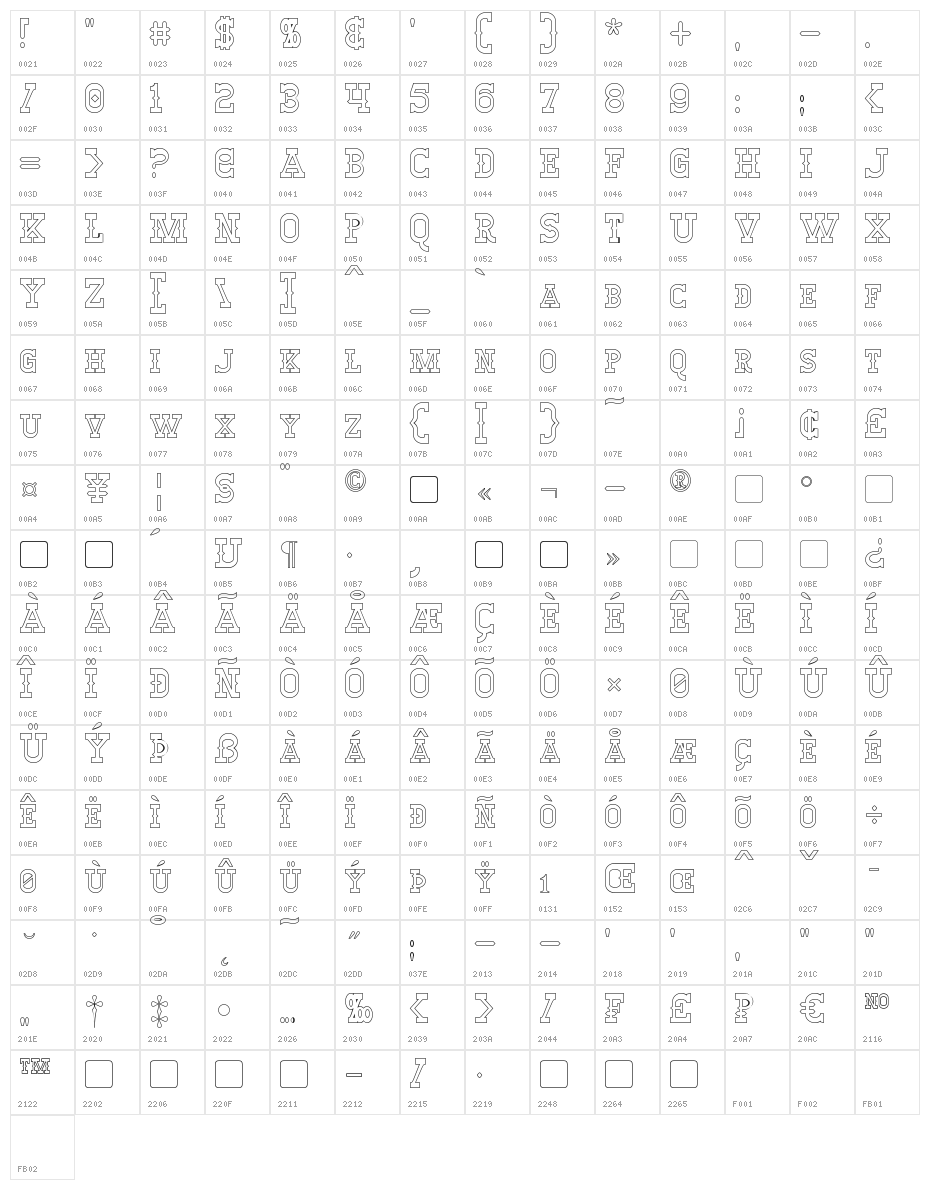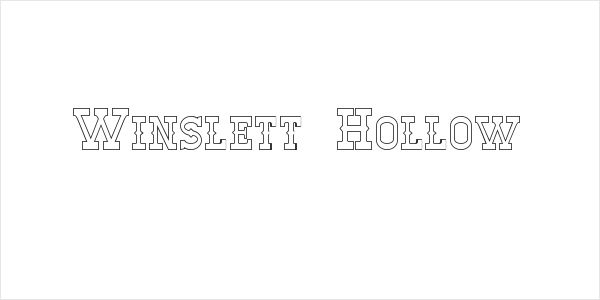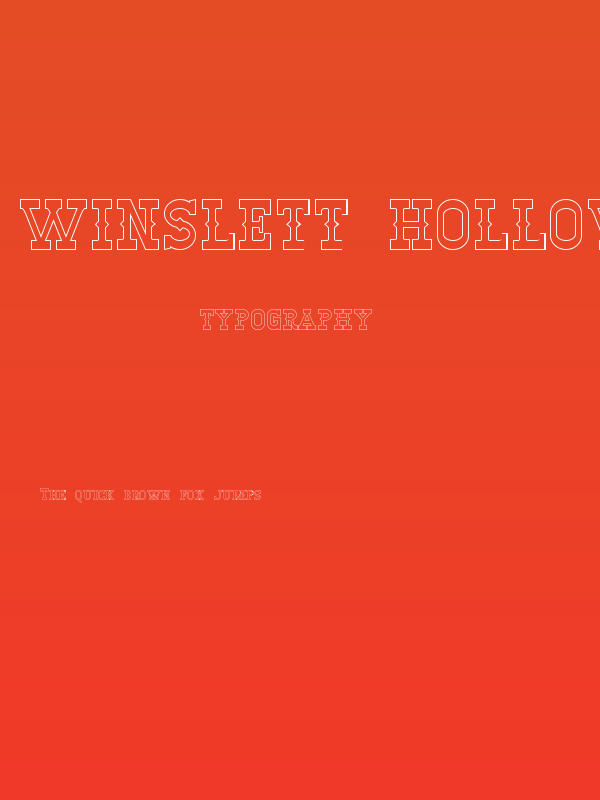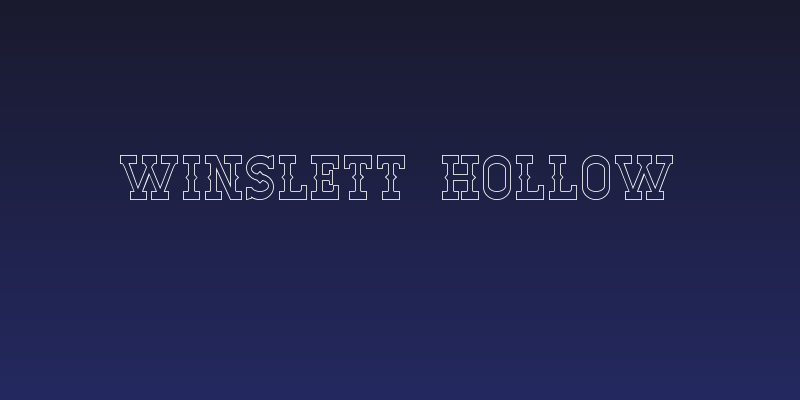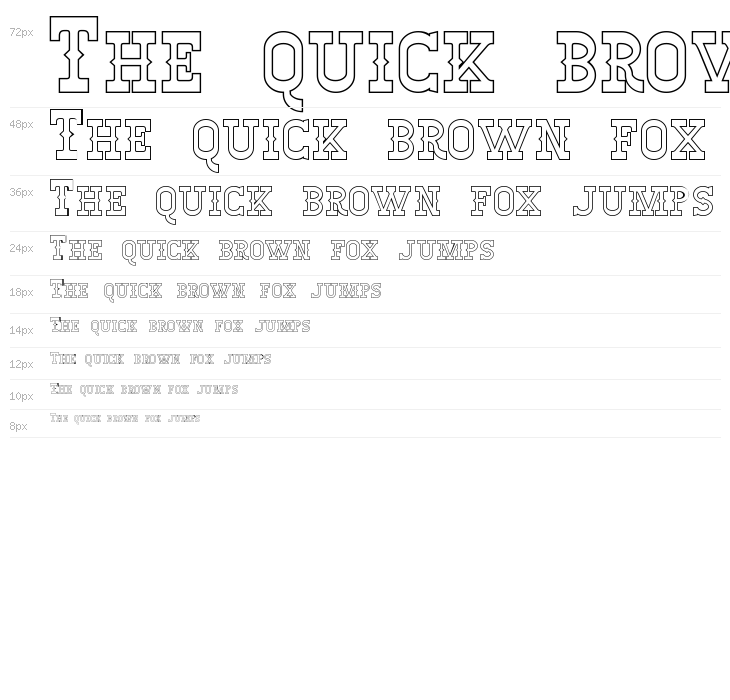
Winslett Hollow Font
Winslett Hollow Description
This font features a bold, hollow design with a strong geometric structure. The uppercase letters are characterized by their uniform width and consistent stroke thickness, creating a sense of balance and stability. The numbers and special characters maintain this cohesive style, ensuring versatility across various applications. The hollow nature of the font adds a unique dimension, making it stand out in both digital and print media. Its clean lines and clear shapes make it suitable for modern and contemporary designs, while the boldness ensures readability and impact.
| Proposed Projects | Ideal for posters, headlines, logos, and branding materials where a modern and impactful look is desired. |